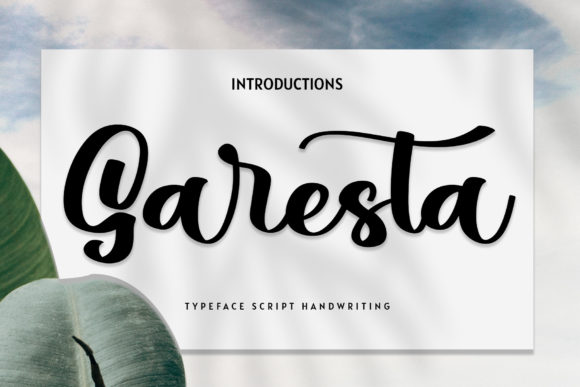
Prepare to be captivated by Garesta, an enchanting script font that will infuse your designs with a touch of rustic charm and modern flair. Whether you're crafting personalized farmhouse signs, designing eye-catching social media graphics, or creating elegant invitations, Garesta is the perfect font to make your words dance with graceful elegance.
Crafted with meticulous attention to detail, each letter in the Garesta font family flows effortlessly, exuding a sense of harmony and balance. Its smooth curves and delicate flourishes evoke the nostalgic allure of vintage signage, while maintaining a contemporary edge that ensures your designs stand out from the crowd.
Indulge in the versatility of Garesta, a font that effortlessly adapts to a myriad of design styles. Its charming character lends itself beautifully to farmhouse-inspired aesthetics, effortlessly creating a warm and inviting ambiance. Yet, Garesta's versatility extends beyond rustic charm. Its contemporary undertones make it equally at home in modern and sophisticated designs, adding a touch of whimsy and elegance to any project.
With Garesta at your fingertips, you'll find endless possibilities to express your creativity. Design captivating logos that exude a timeless charm, create stunning wedding invitations that evoke a sense of romance, or add a touch of rustic flair to your social media presence. The possibilities are as limitless as your imagination.
So, embrace the magic of Garesta and embark on a creative journey where words come alive with graceful beauty and timeless charm. Let your imagination soar as you transform ordinary designs into extraordinary works of art.